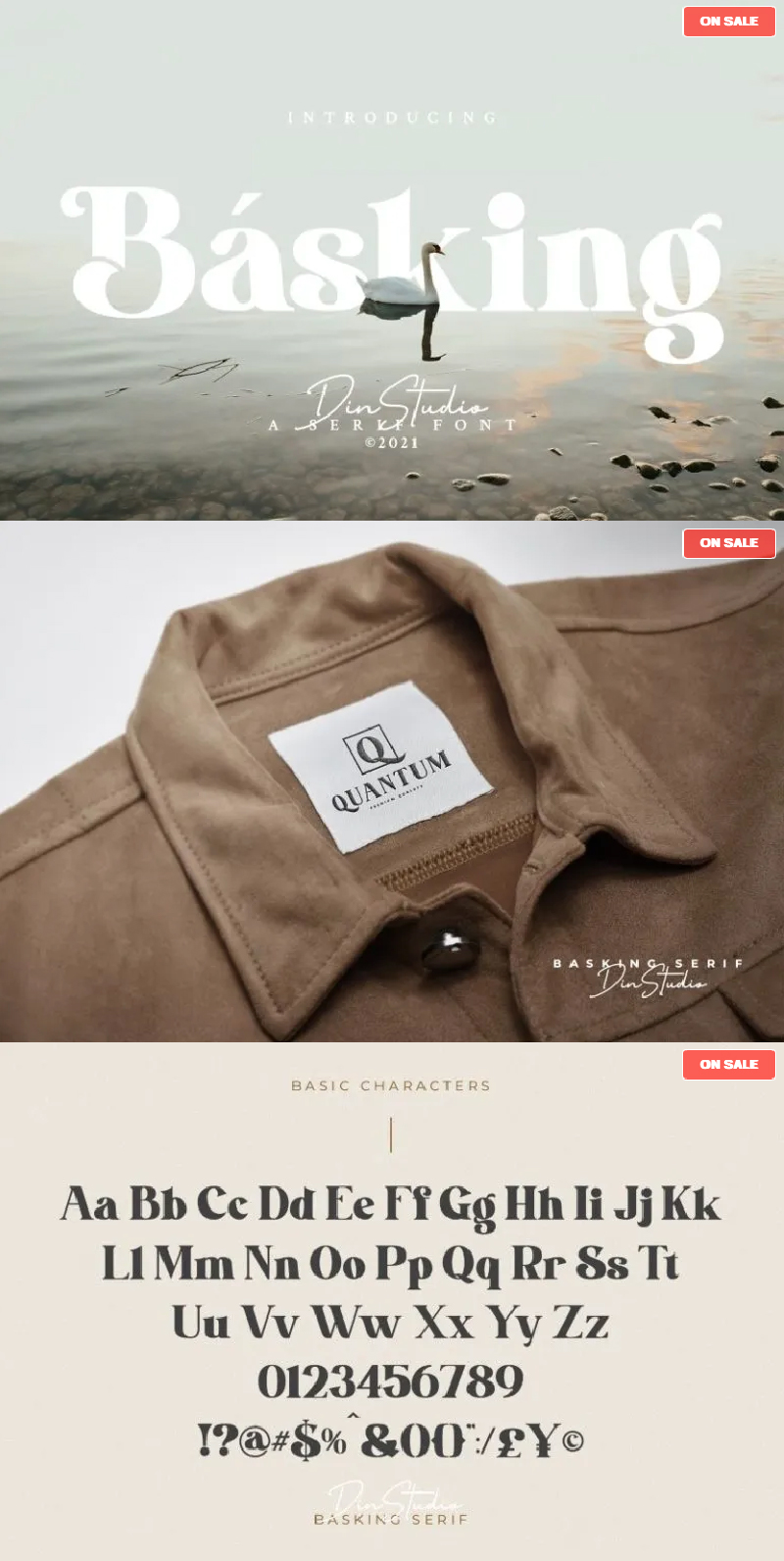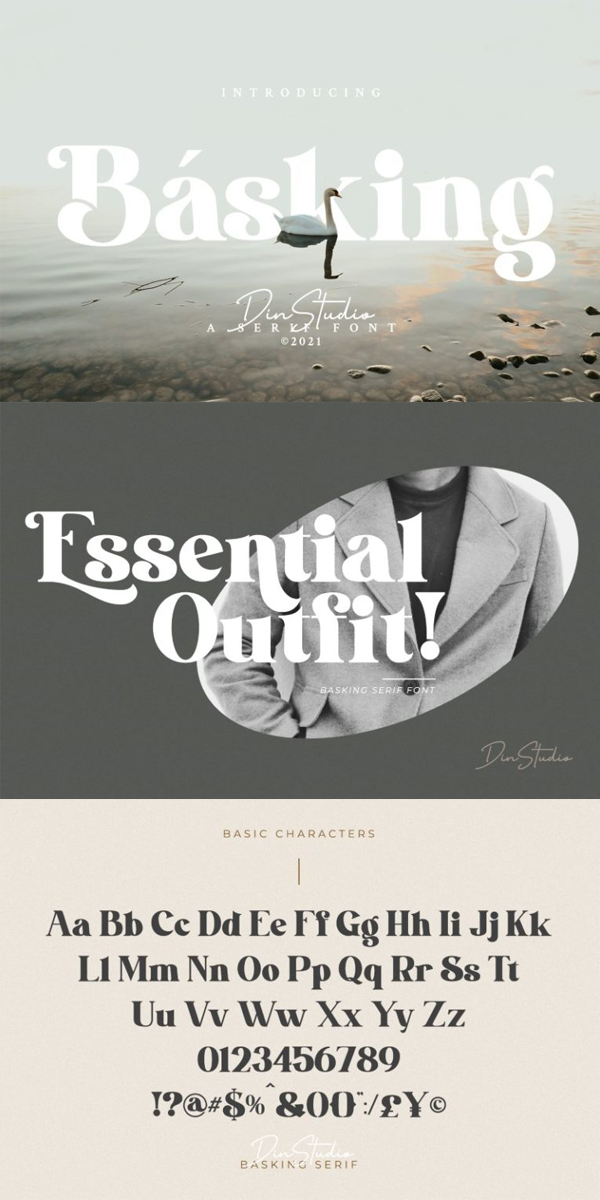
Basking Font
About Basking
Introducing Basking – A Serif Font
A fabulous and elegant modern serif font that’ll engage your audience and make your branding stand out from the competition. Basking can be used for a host of different content needs and projects. Perfect for social media branding projects, fashion designs, printed quotes, packaging, or even as a stylish text overlay to any background image.